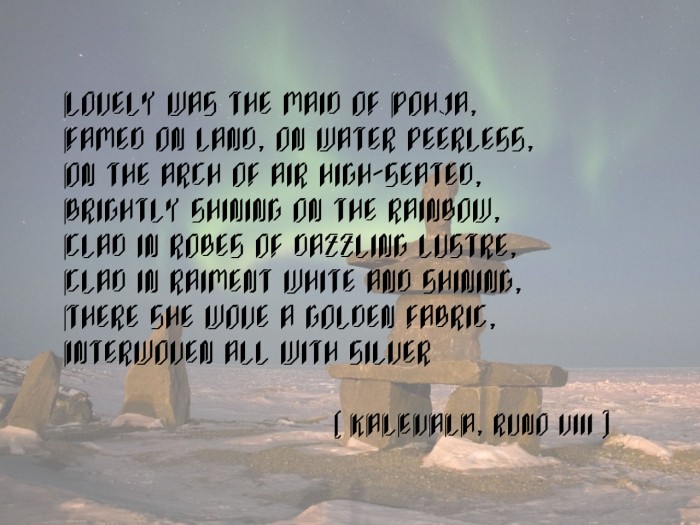
• Inspired by a Blackletter font in which I saw Art Deco qualities. The name comes from Norse/Viking mythology. It's great for headlines/titles and works nicely as majuscles for slab sans serif fonts.
A striking type face but one I could not visualise as being very readable. Having seen your example however I realise how wrong I was in my initial assessment. Perfectly legible and beautiful too.....